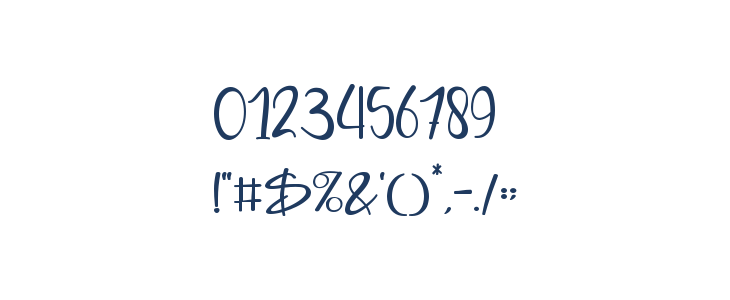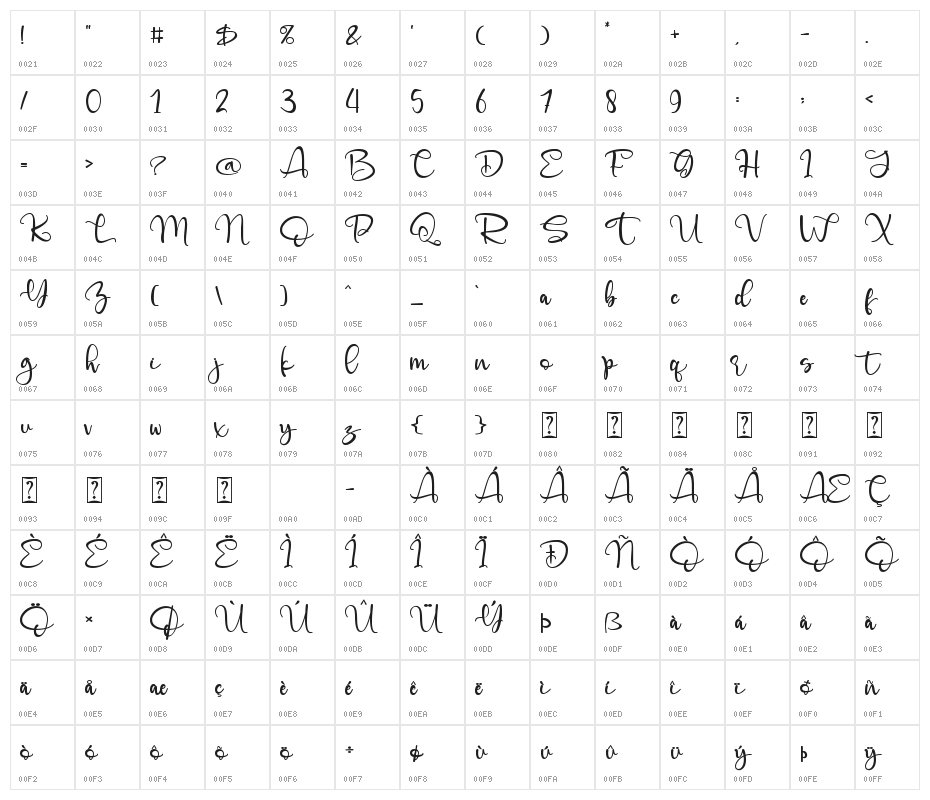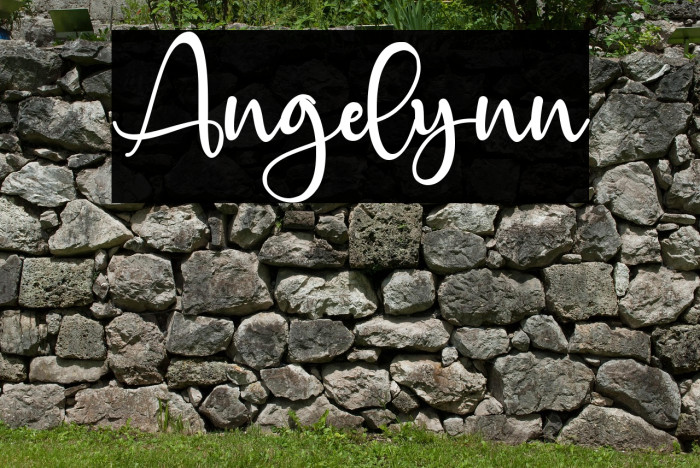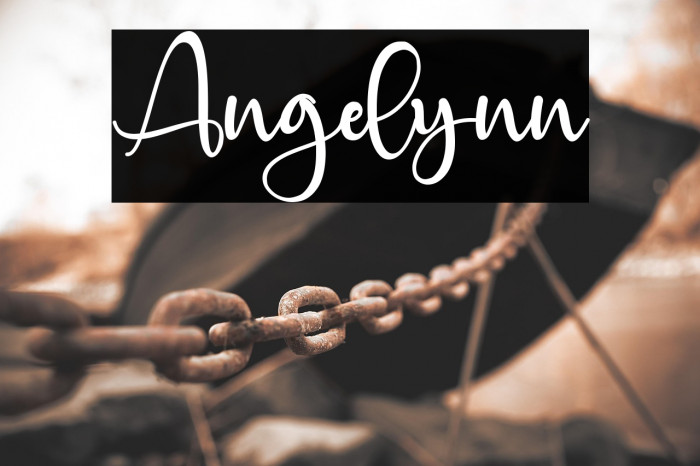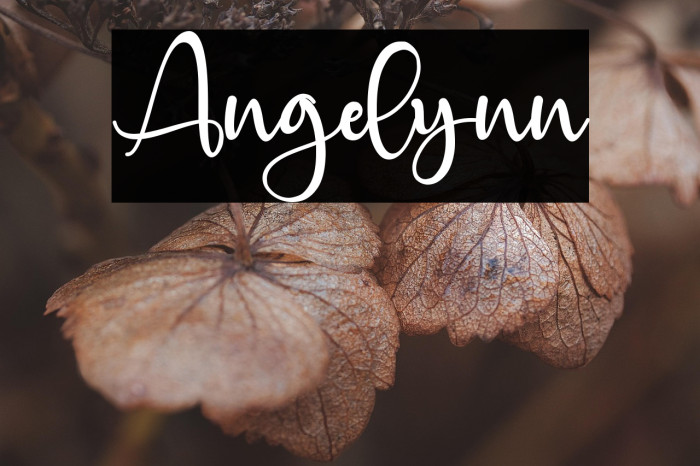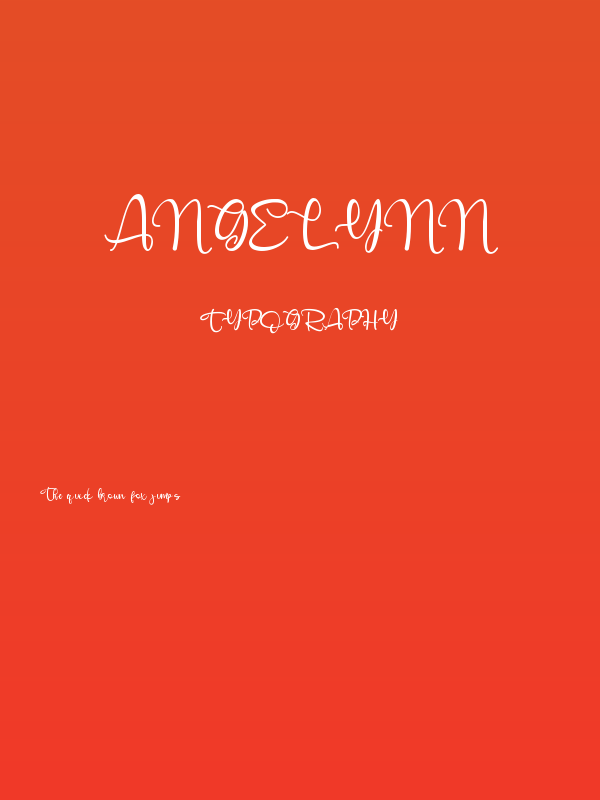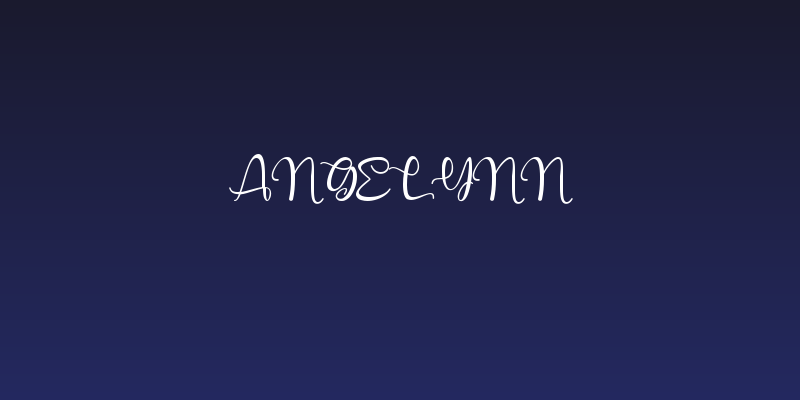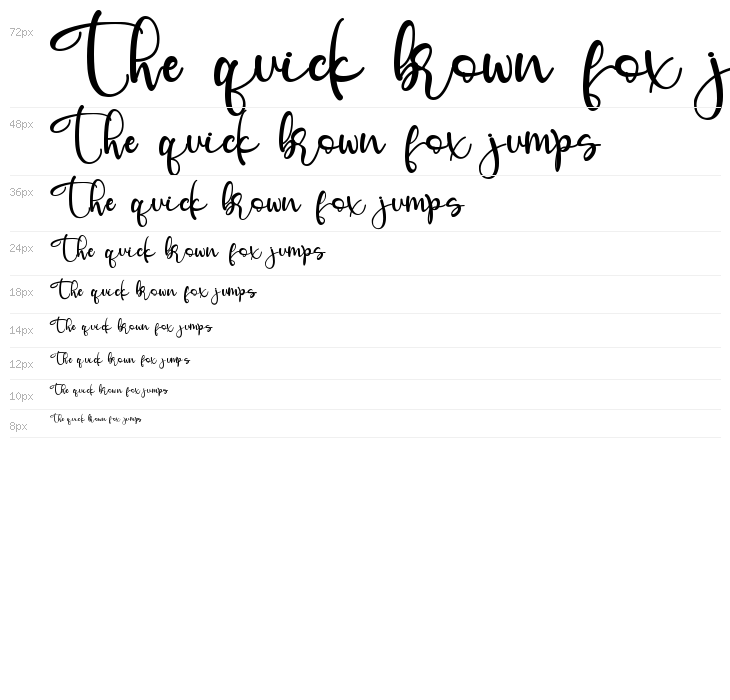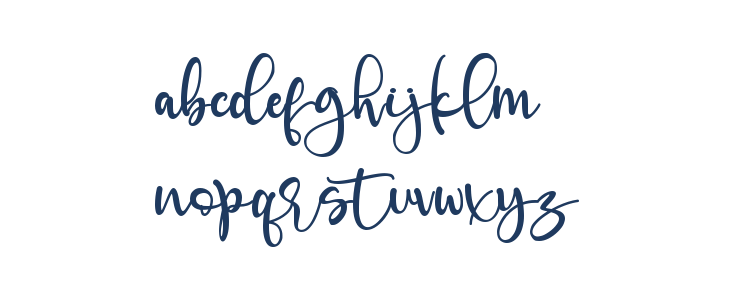
Angelynn Font
Angelynn Description
This font features a charming and elegant script style, characterized by its flowing, interconnected letters that mimic the fluidity of natural handwriting. The uppercase letters are slightly more ornate, with graceful loops and swirls, while the lowercase letters maintain a consistent, smooth flow. The numerals are distinct and easy to read, complementing the overall script style. Special characters are thoughtfully designed to integrate seamlessly with the alphabet, enhancing the font's versatility. The font's playful yet sophisticated appearance makes it suitable for a variety of creative projects.
Use CaseLogos, Invitations, Headlines
Proposed ProjectsIdeal for wedding invitations, greeting cards, branding, and social media graphics.